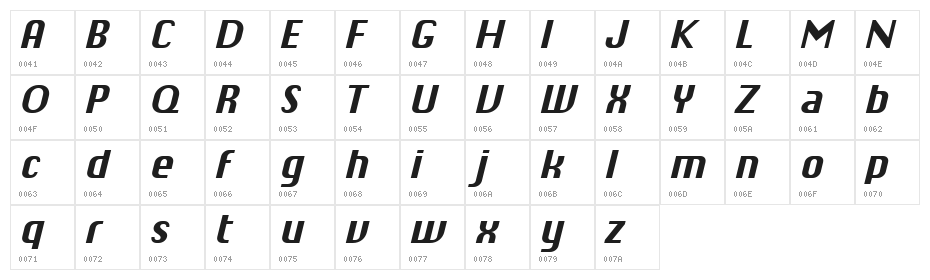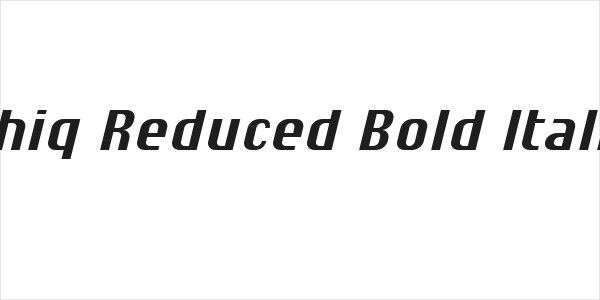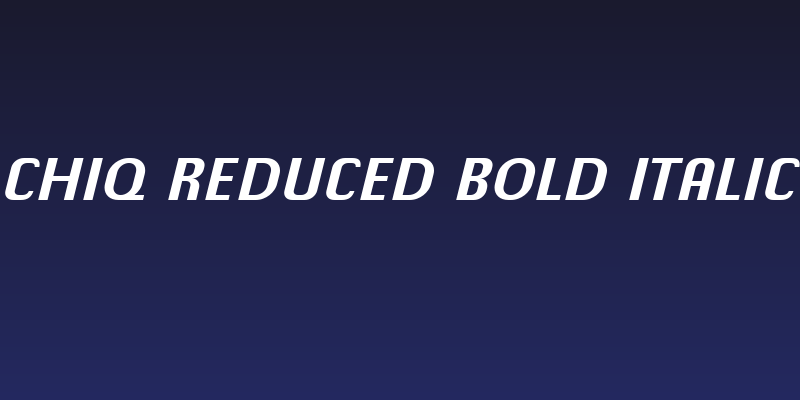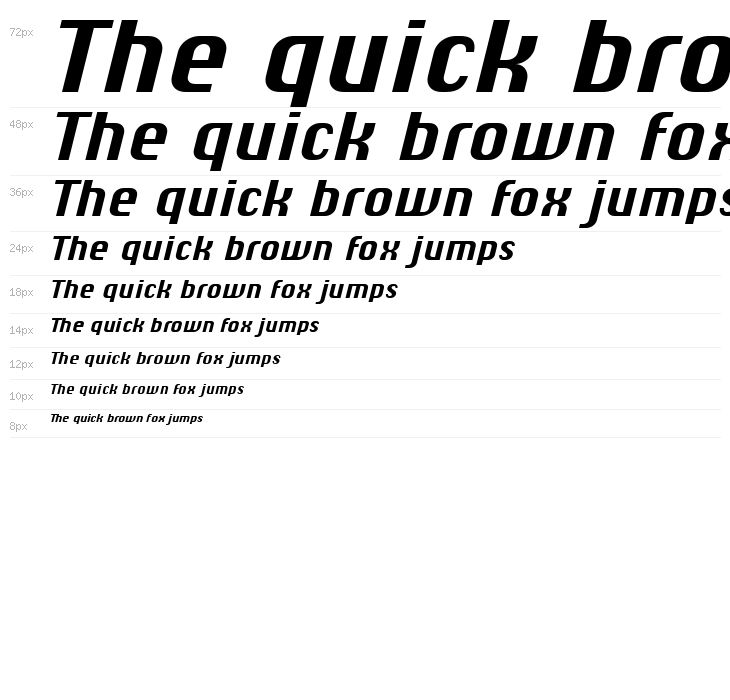
Chiq Reduced Bold Italic Font
Chiq Reduced Bold Italic Description
This font features a bold and italicized style with a modern and sleek appearance. The characters are slightly condensed, giving it a compact look while maintaining readability. The strokes are consistent and smooth, with a medium contrast that adds to its dynamic and energetic feel. The italic slant adds a sense of motion and fluidity, making it suitable for contemporary designs. The uppercase and lowercase letters are well-proportioned, and the overall design is clean and professional, making it versatile for various applications.
| Proposed Projects | Ideal for branding, advertising, and editorial design where a modern and dynamic look is desired. |